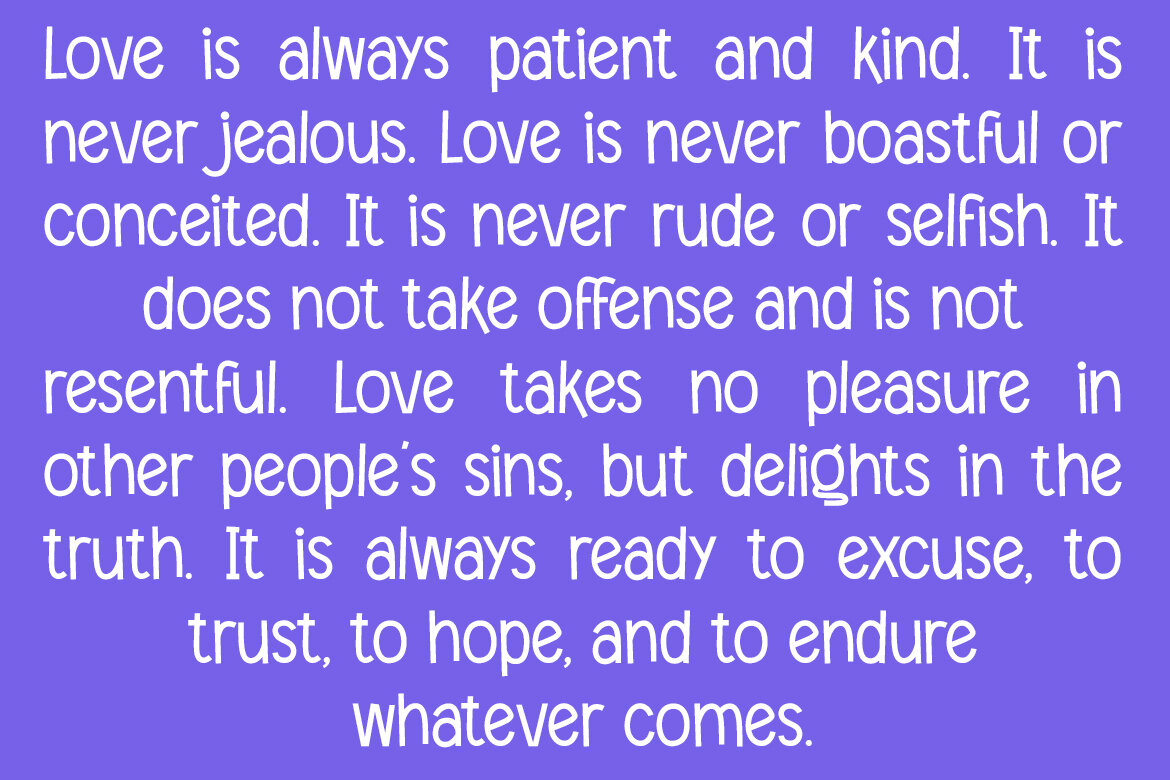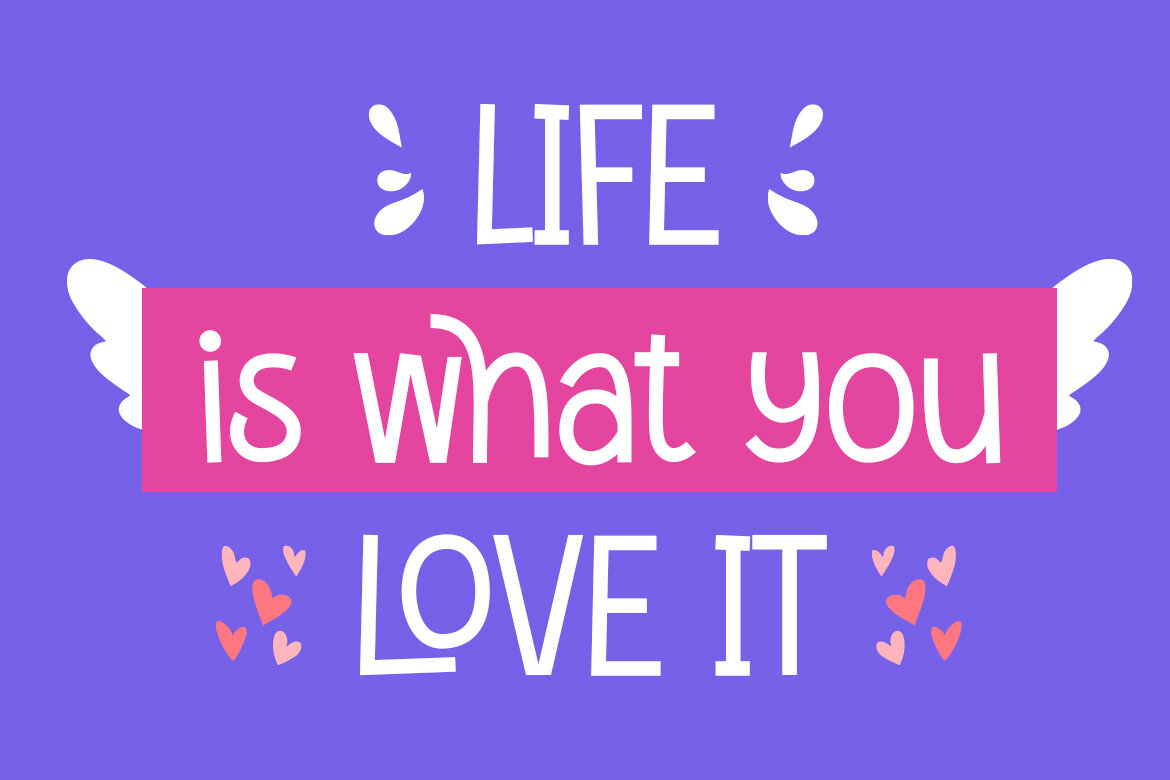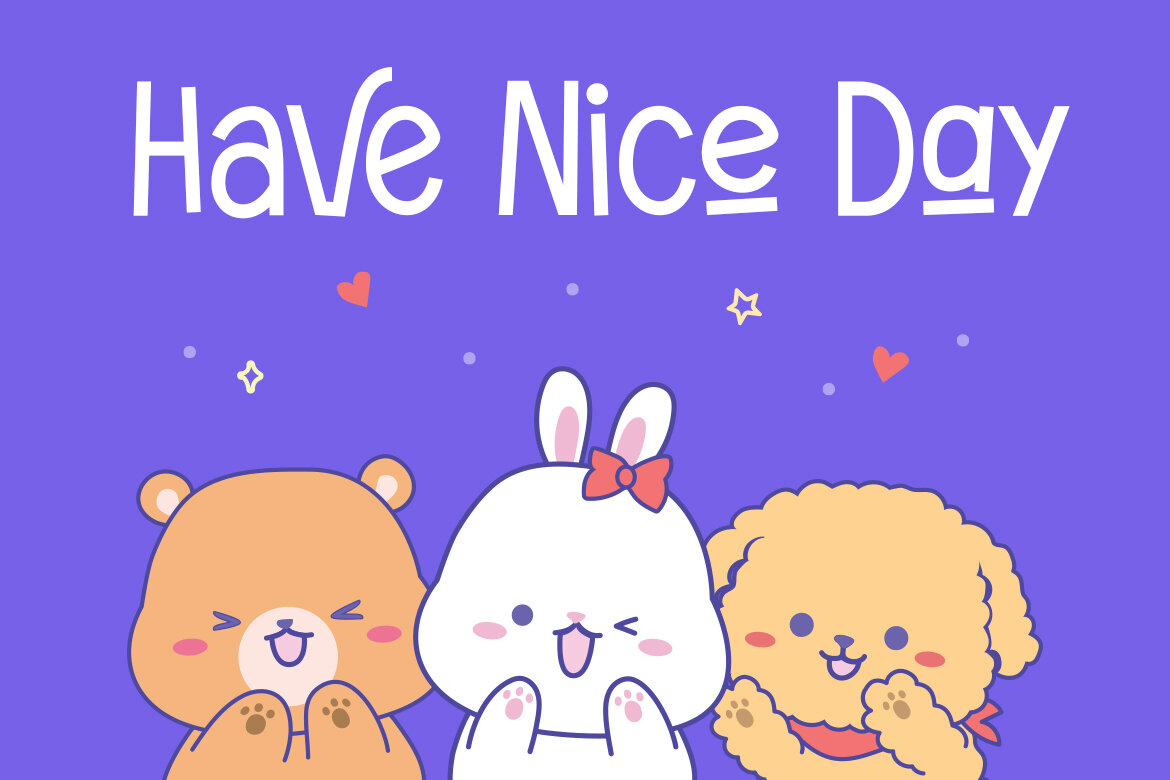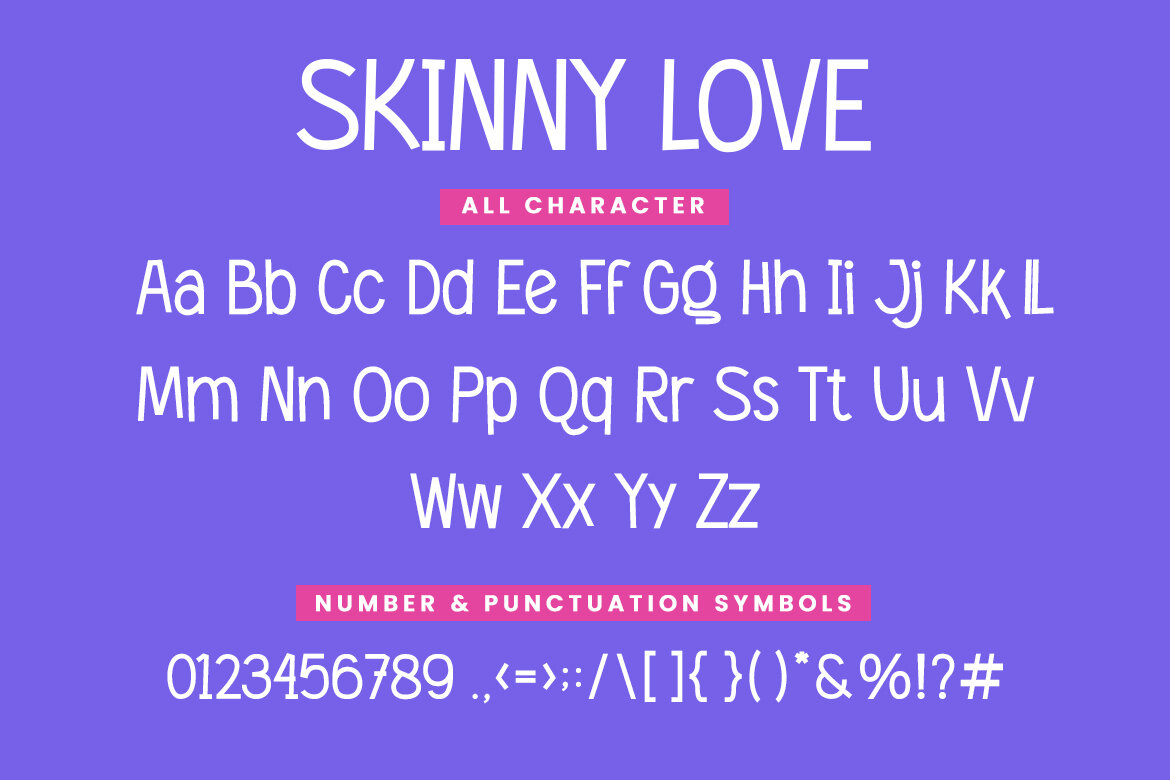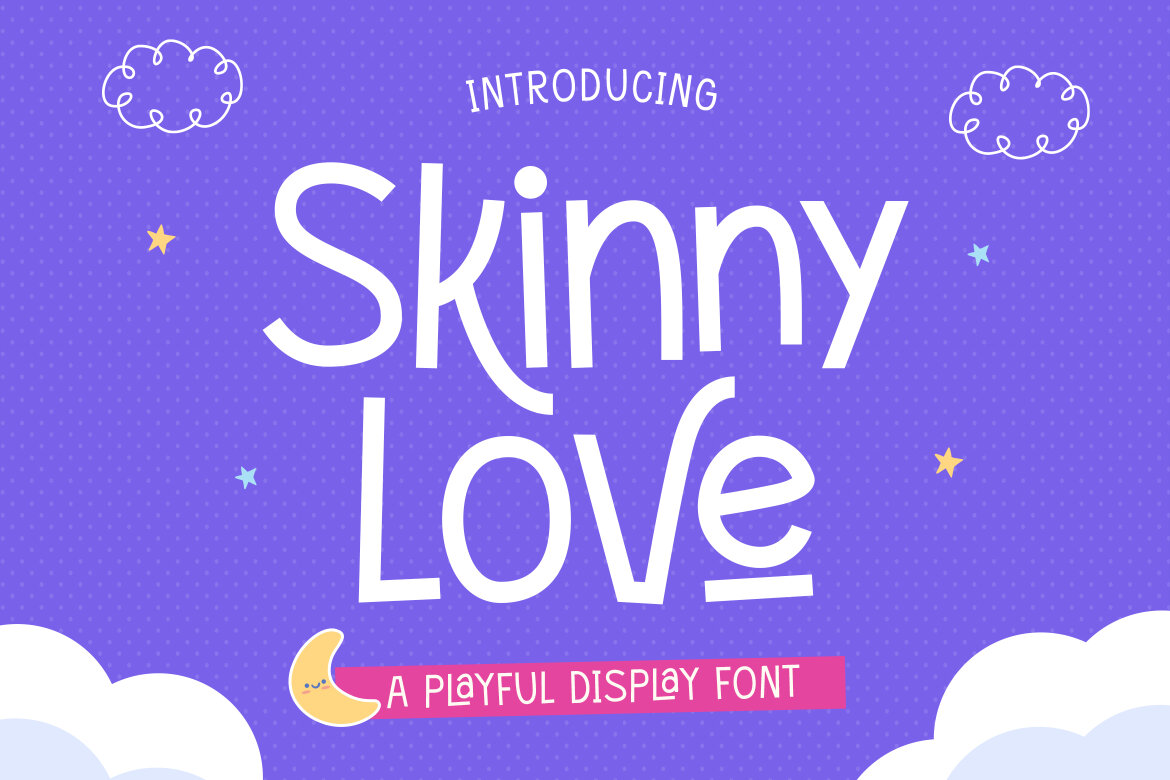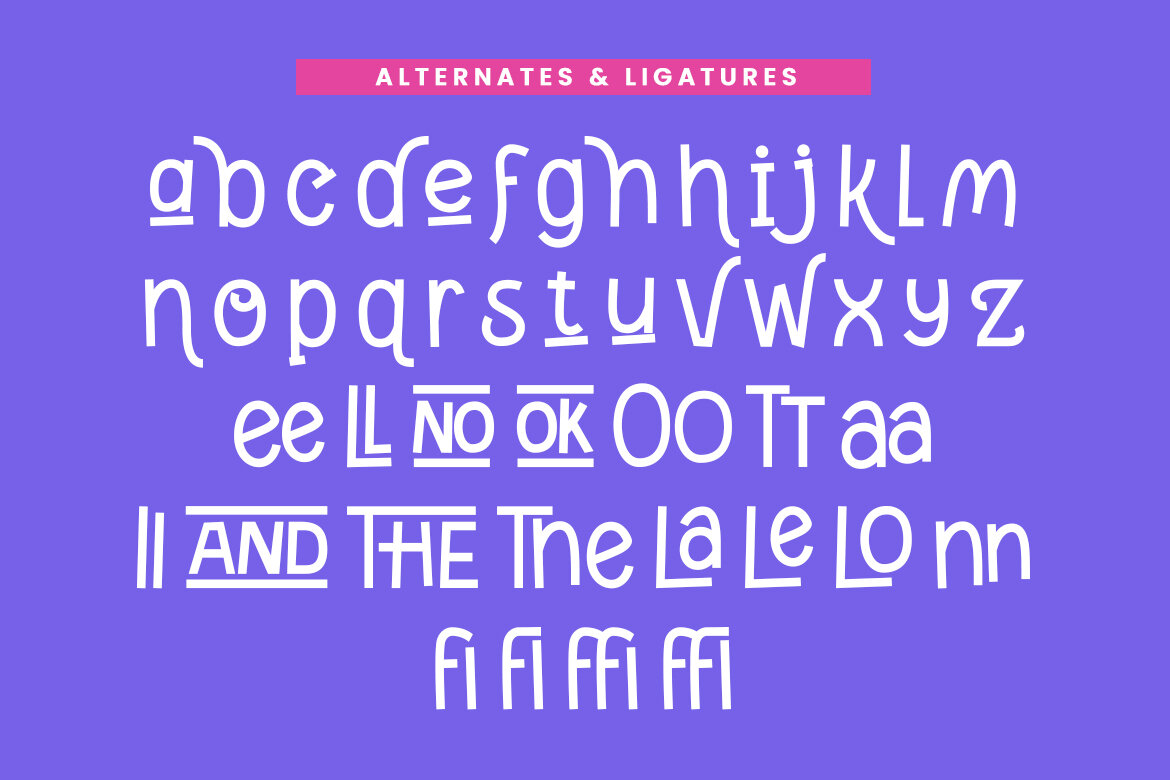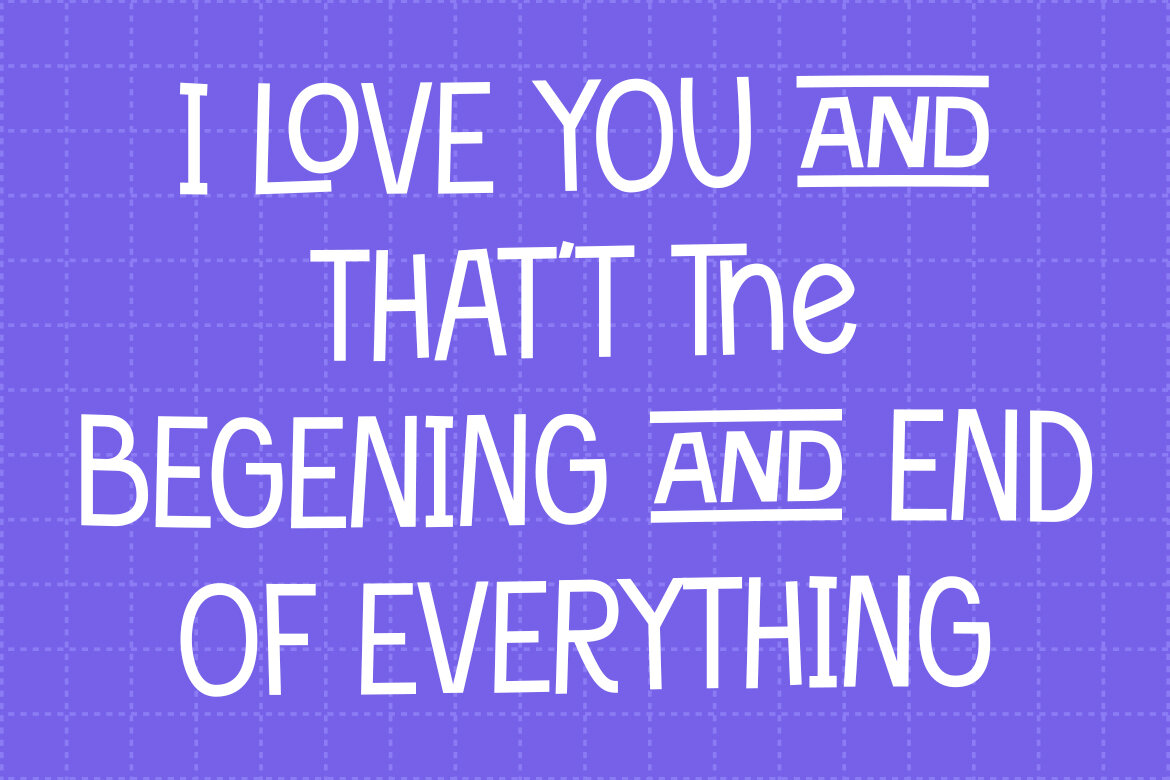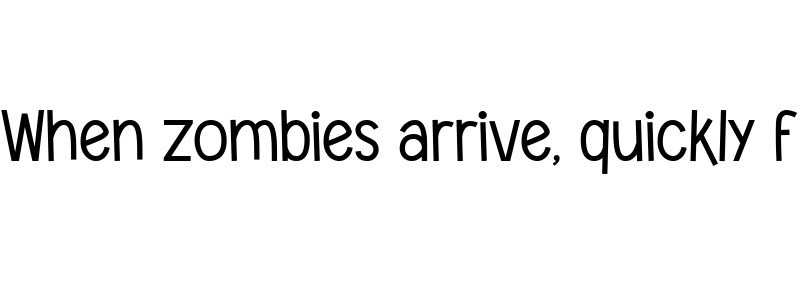
Skinny Love - Cute FREE Font
Skinny Love font is a cute and fun handwritten display font. It is perfect for elevating your design projects! Add this font to your flyers, invitations, cards, logos, social media, web design and watch them come to life.
• features: uppercase, lowercase, ligature, alternate & multilingual support